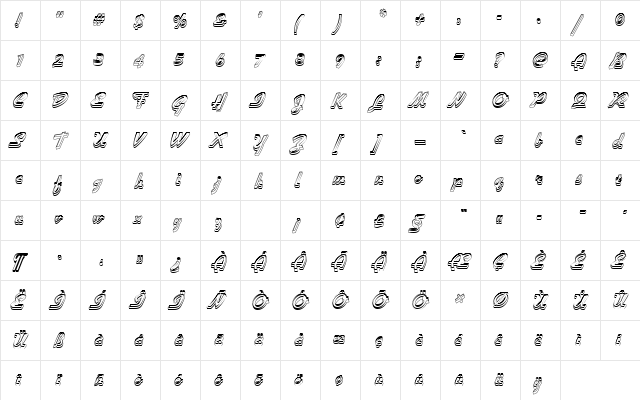
GilliesGotShaDOu1 Regular
GilliesGotShaDOu1 is a composed and adaptable typeface that performs quietly and consistently across a wide range of design contexts.